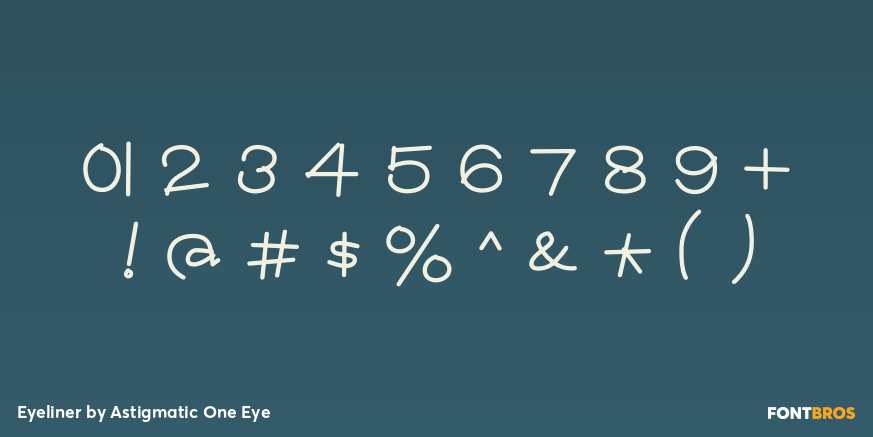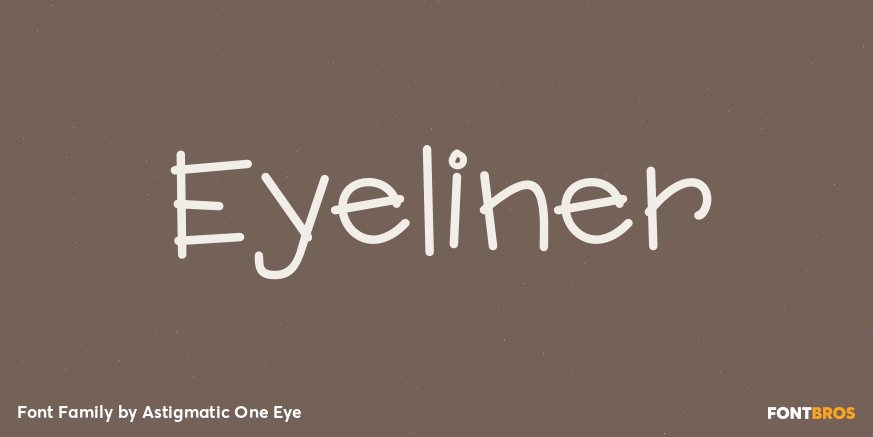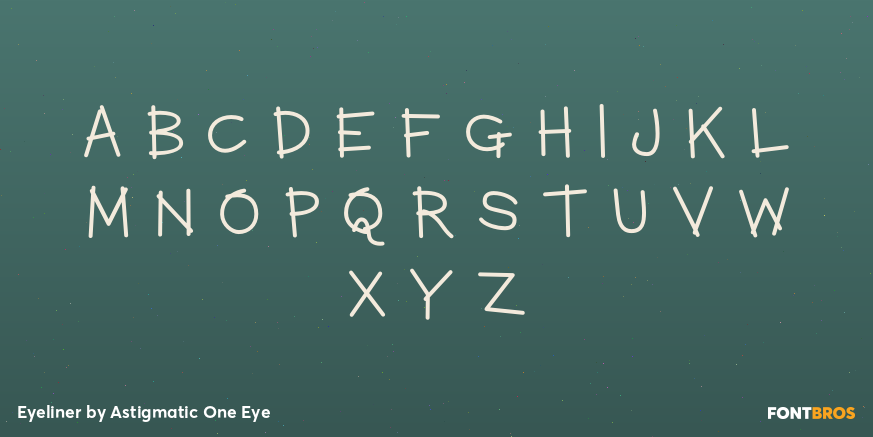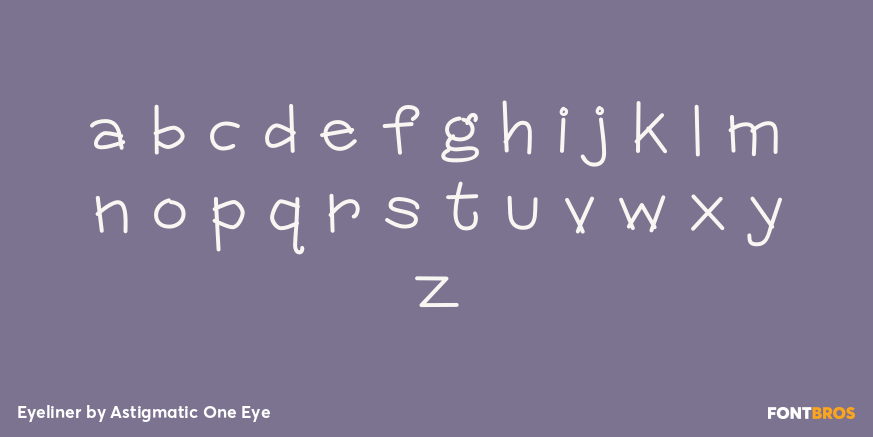
Eyeliner
Font Family by Astigmatic One Eye
Eyeliner is a playful handwritten display family with a loose, offbeat feel that gives headlines and short phrases an instantly casual, wacky personality. Its hand-drawn look keeps things lively and approachable, making it a strong fit for designs that want character over polish.
With 2 included styles—Eyeliner and Eyeliner Bold—this family gives you a little range for dialing up emphasis while keeping the same quirky voice. Use it for posters, fun branding, social graphics, packaging, crafts, or any display work that benefits from a handwritten touch and an easygoing attitude.
Created by Astigmatic One Eye, this is a good choice when you want lettering that feels informal, expressive, and a bit delightfully unruly.